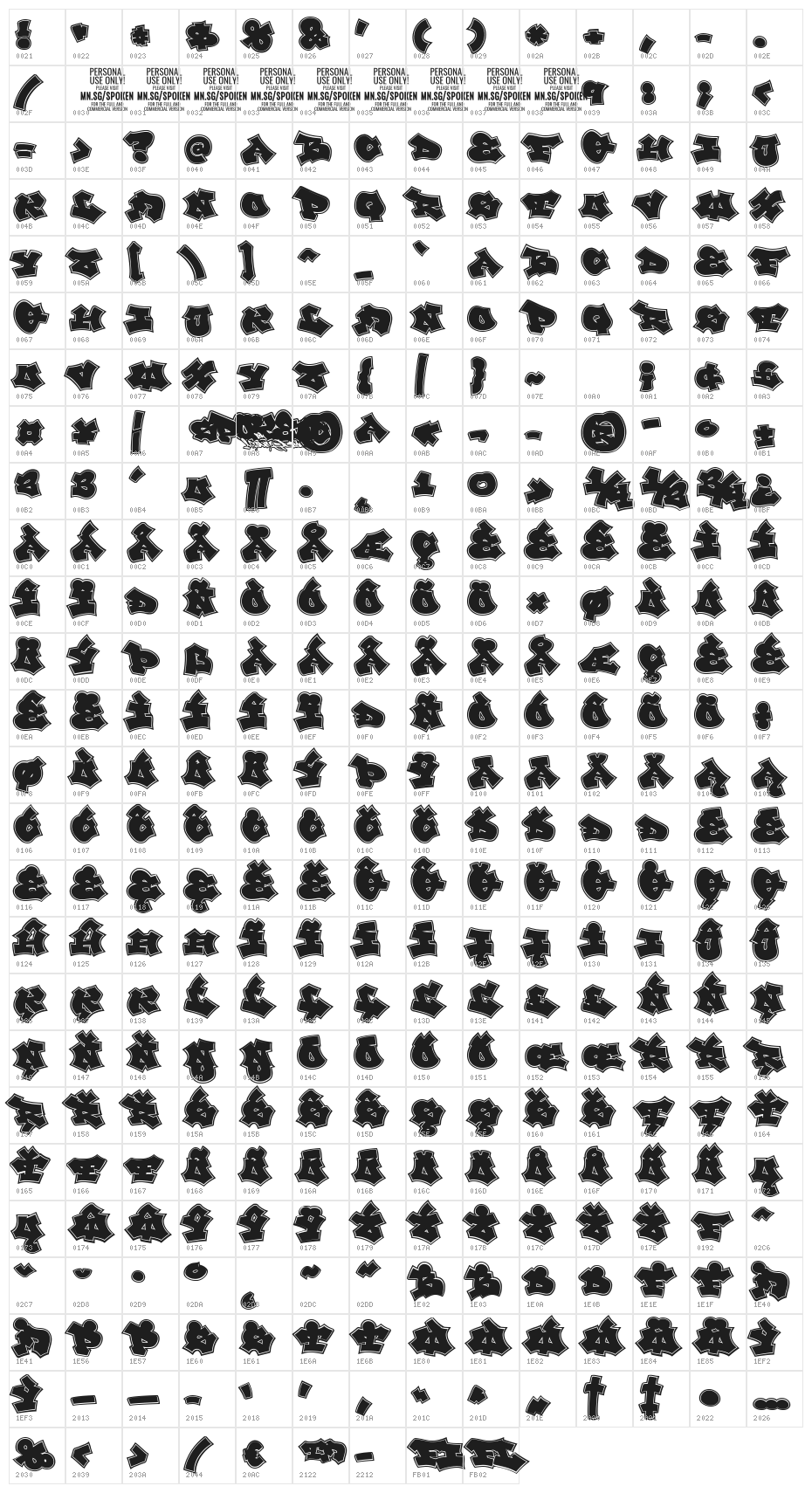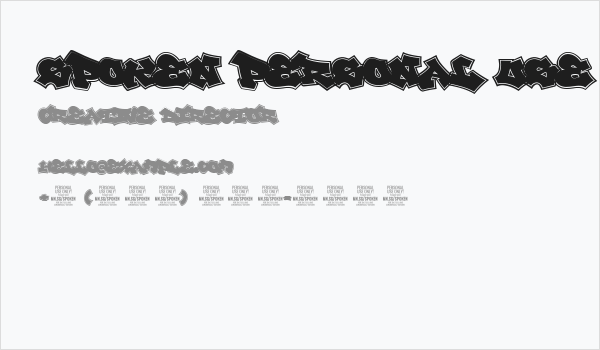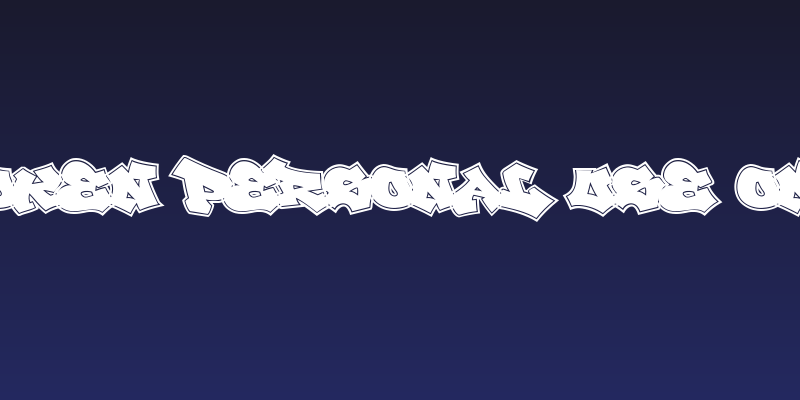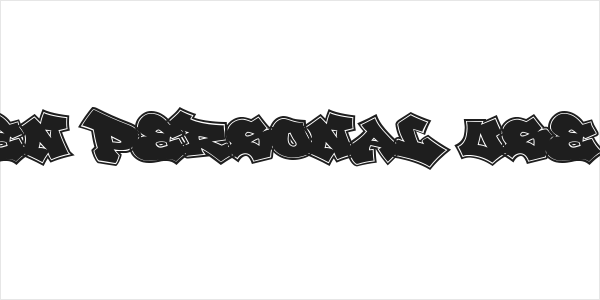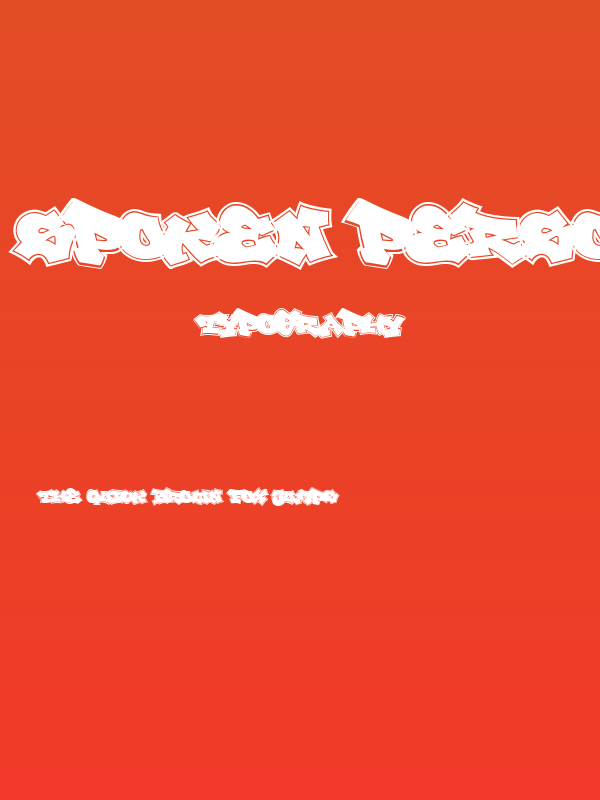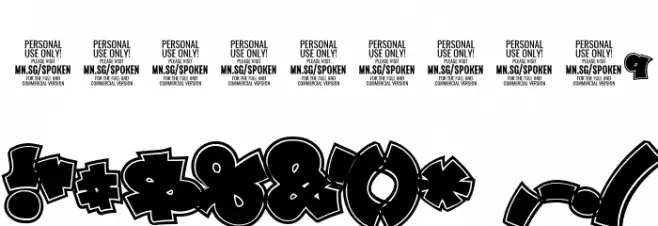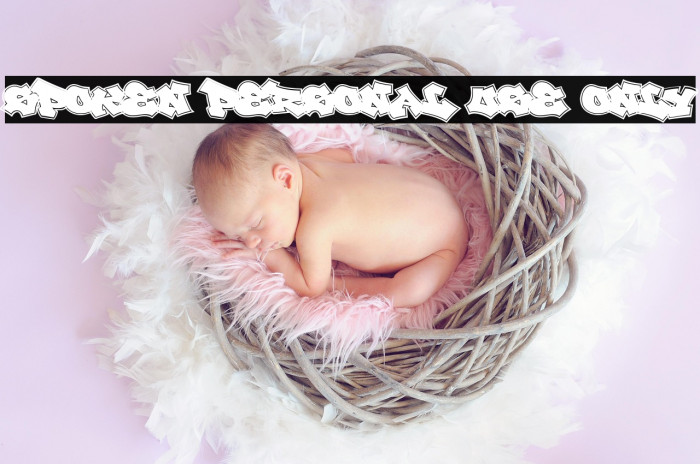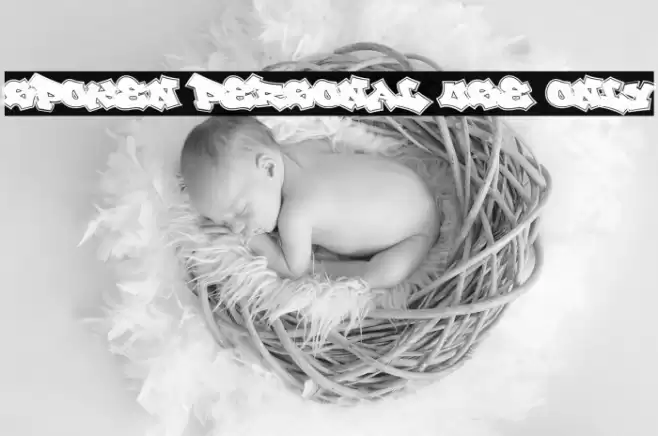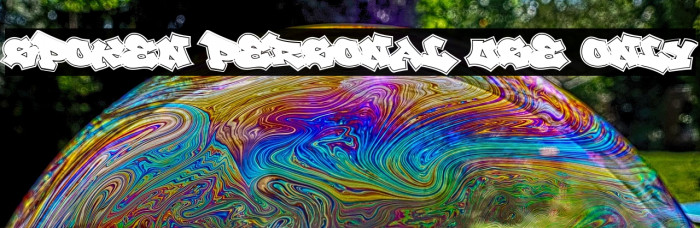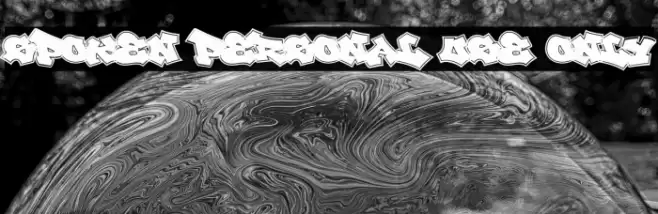
Spoken PERSONAL USE ONLY Font
Spoken PERSONAL USE ONLY Description
This font features a bold, graffiti-inspired style with thick, blocky letters that have a dynamic and edgy appearance. The characters are outlined with a contrasting stroke, enhancing their visibility and giving them a three-dimensional effect. The uppercase and lowercase letters maintain a consistent style, with angular shapes and sharp edges that convey a sense of movement and energy. The numbers and special characters follow the same design principles, ensuring a cohesive look across all elements. This font is ideal for projects that require a bold and urban aesthetic, such as street art, music album covers, or event posters.
| Overall Style | Urban, Edgy, Graffiti |
| Proposed Projects | Street art, music album covers, event posters, urban-themed designs. |